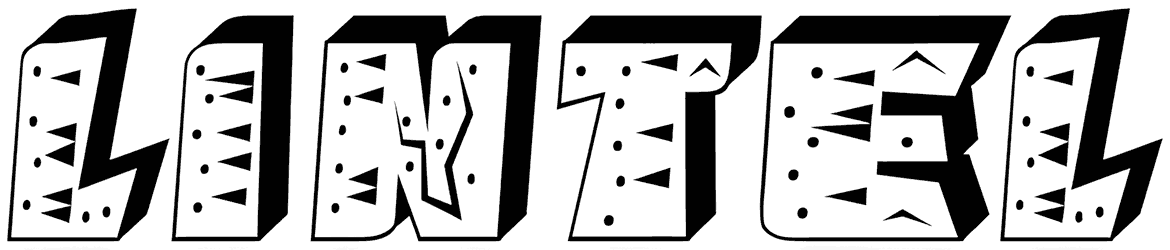
Lintel Font
Choosing the proper font for design may appear difficult, but it’s not. Today, RB will help you with the art of “innovating” your work by utilizing a fancy, stone font.
Lintel desires to transform your design into a work of art. Although only capital letters are supported, when you take into account its three distinct styles, this provides you with more options for creating birthday cards, books for children, and titles for movies.
It comes in Regular, Italic and Bubbled variant!